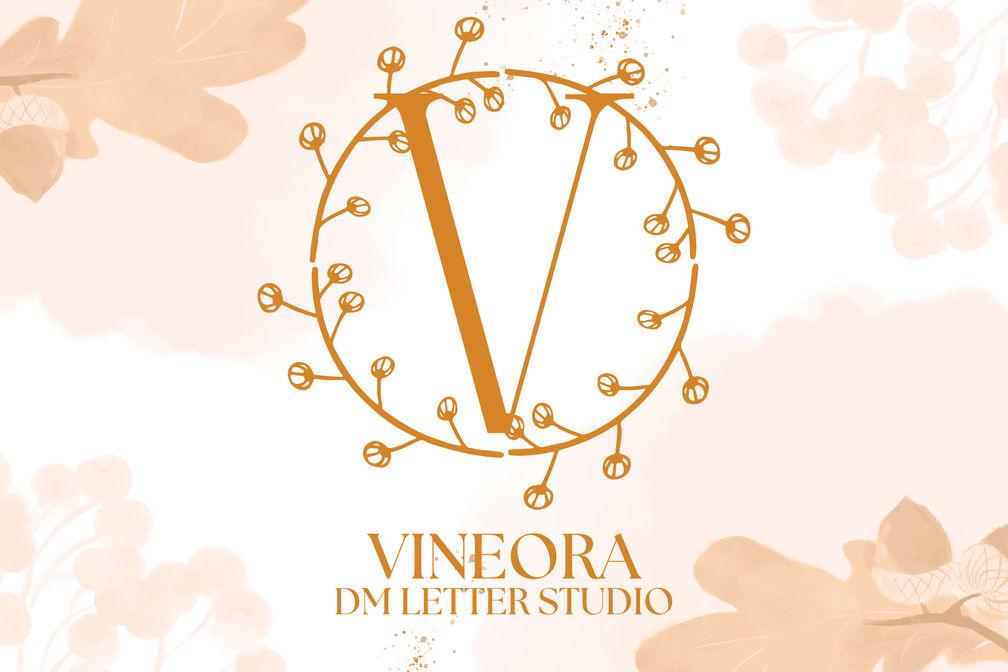
Vineora Monogram
Vineora Monogram – Elegant Serif Monogram with Flourishing Vines
Vineora Monogram is a graceful serif monogram font adorned with trailing vine accents. Designed for timeless elegance, each uppercase letter is crafted with botanical sophistication—perfect for wedding stationery, personalized gifts, and Cricut craft projects.
• Classic Serif Style: Elegant uppercase letters with refined serif detailing.
• Botanical Vines: Flowing vine flourishes add a touch of organic charm to each character.